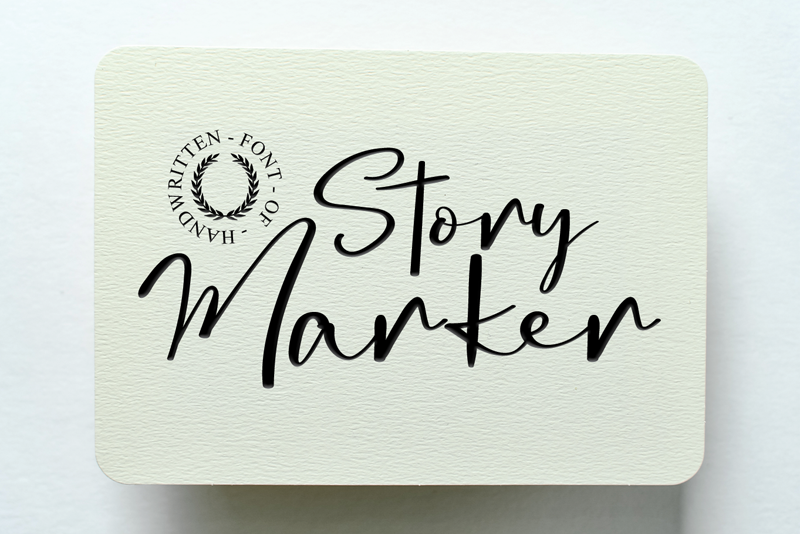
Font name: | Story Marker |
Author: | Behind the Ink |
Story Marker is a lovely and timeless handwritten font. It is the best choice for creating eye catching logos, branding and quotes. Every letter has a unique and beautiful touch, which will make your design come alive! Attention : Story Marker handwriting Font is prohibited to use this font for commercial purposes or for profit without the permission of the author/admin, without being known to use this font without permission, will be subject to sanctions 5x the specified price. This font is used only for demos (Demo license) If you want to use this font for commercial use please contact email: luluksurotul123@gmail.com or click the link below: https://www.creativefabrica.com/product/story-marker/ref/698281/ If you want to see more other fonts, please click: https://www.creativefabrica.com/designer/behind-the-ink/ref/698281/ Any donations are very appreciated. Paypal account for donation: https://www.paypal.com/paypalme/luluk783 thanks. |